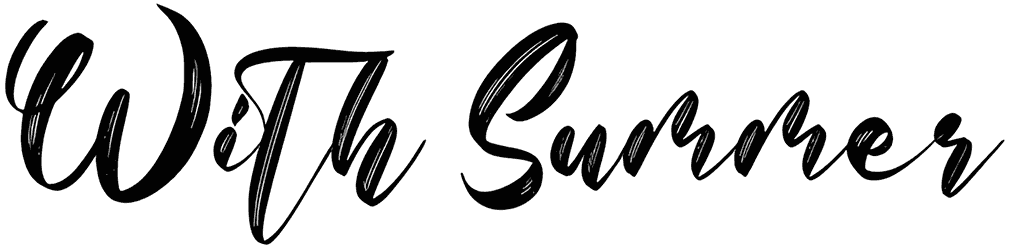
With Summer Font
If you are interested in using rhyming letters in your projects, With Summer can create that. This script font, which is written with a brush, has a jolly and witty inner feeling, just like the start of summer.
So, if you want to suit the audience just like a cool drink in the middle of summer, download this summer font without wasting time. With this, you have made the joy and excitement dance in your greeting cards, summer posters, and albums.